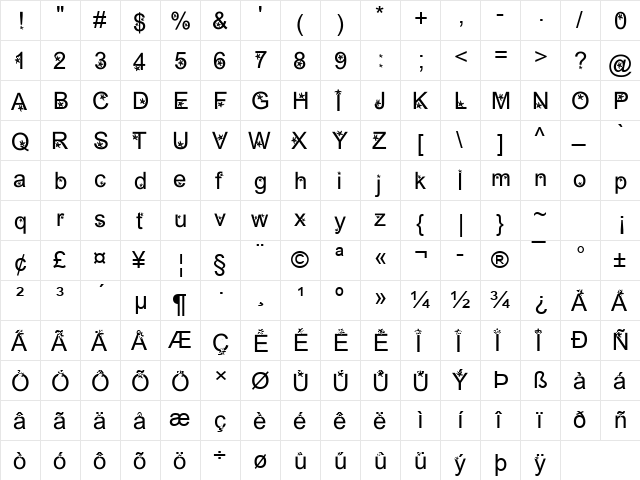
Starfish Font Preview
Starfish Starfish
Starfish Font Details
| Style | Starfish |
| Foundry | Monotype Typography |
| Designer | Monotype Type Drawing Office - Robin Nicholas, Patricia Saunders 1982 |
Design Context for Starfish Typeface
Starfish is a composed and adaptable typeface that performs quietly and consistently across a wide range of design contexts.